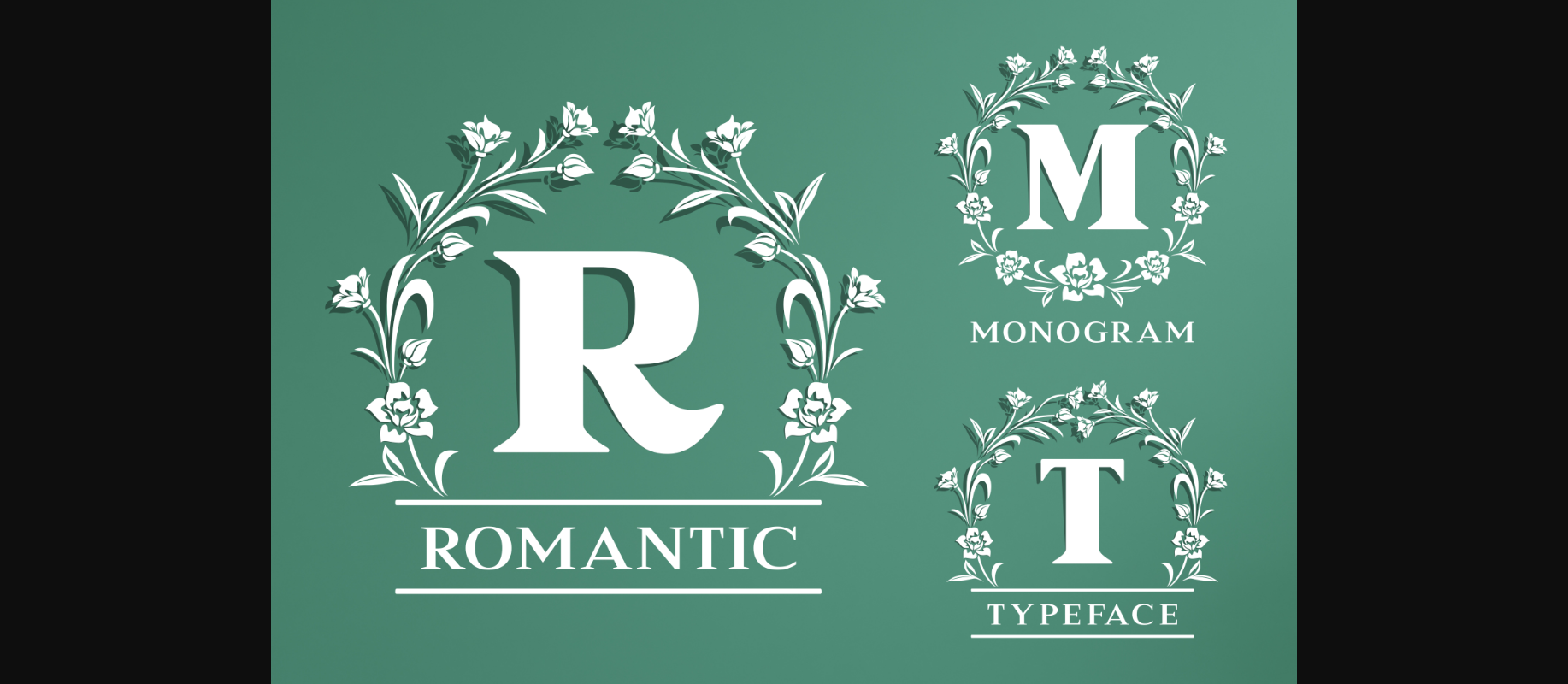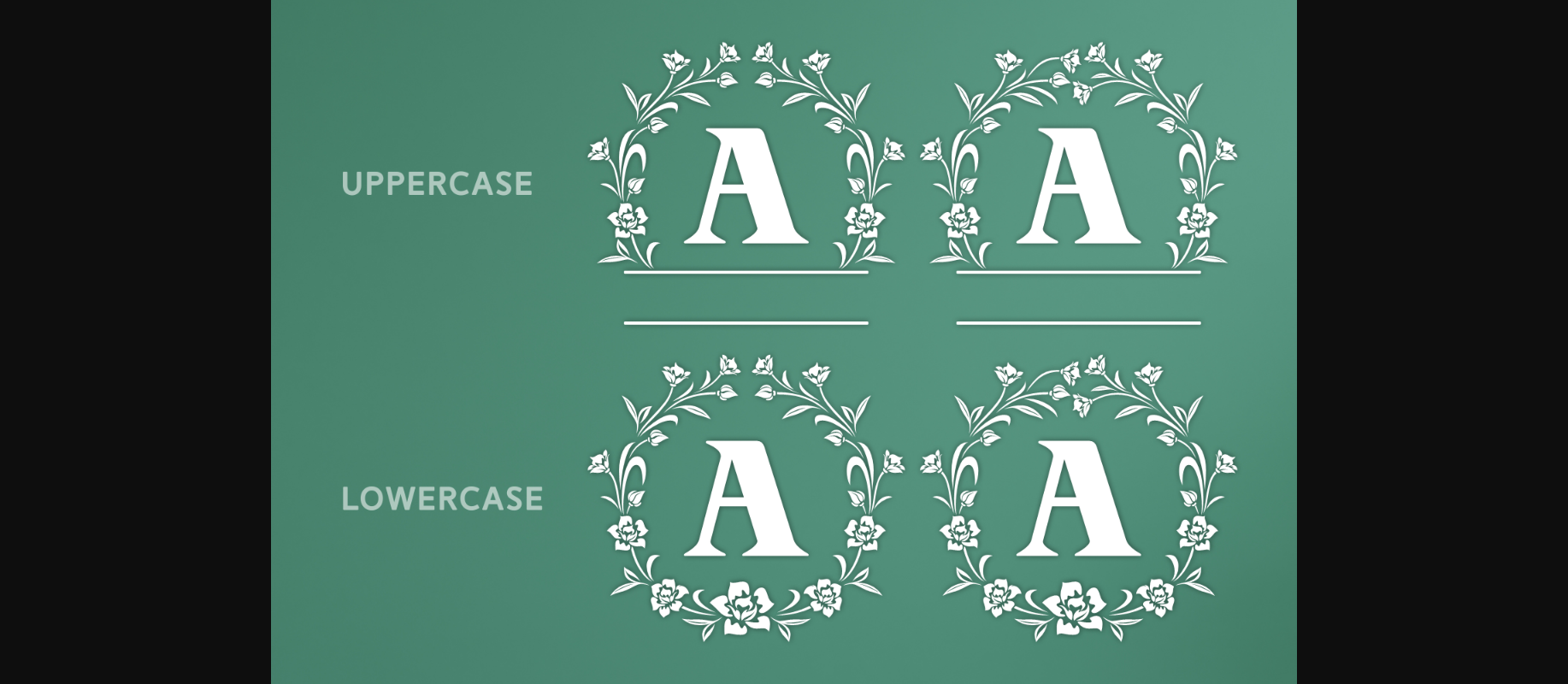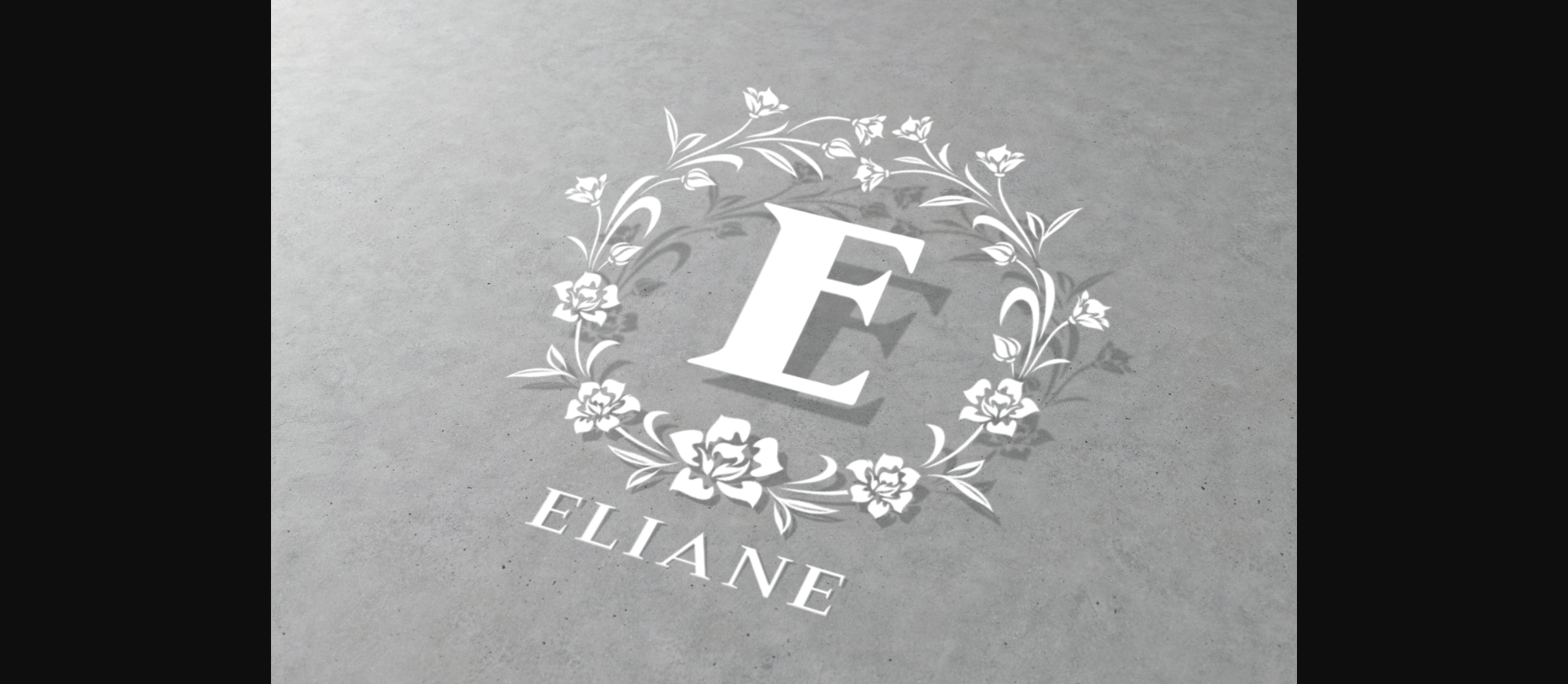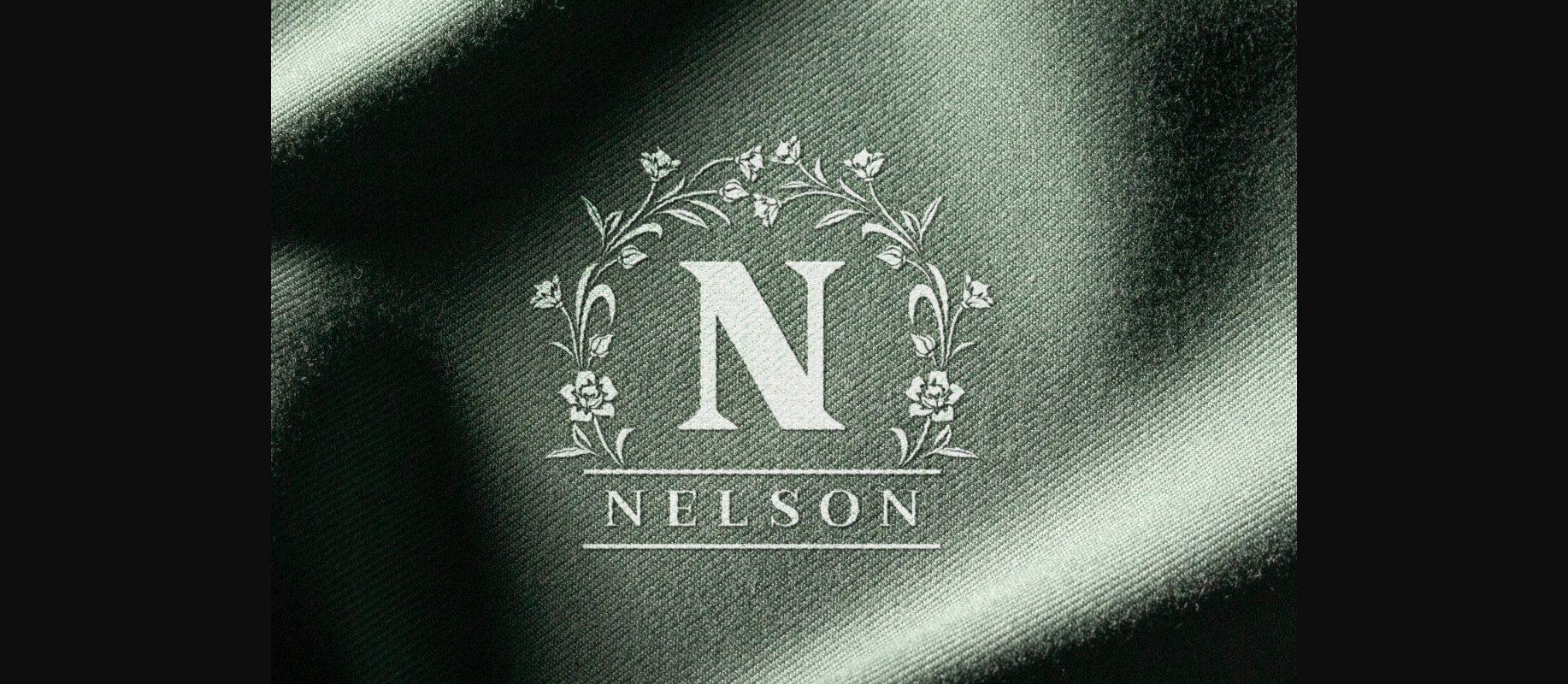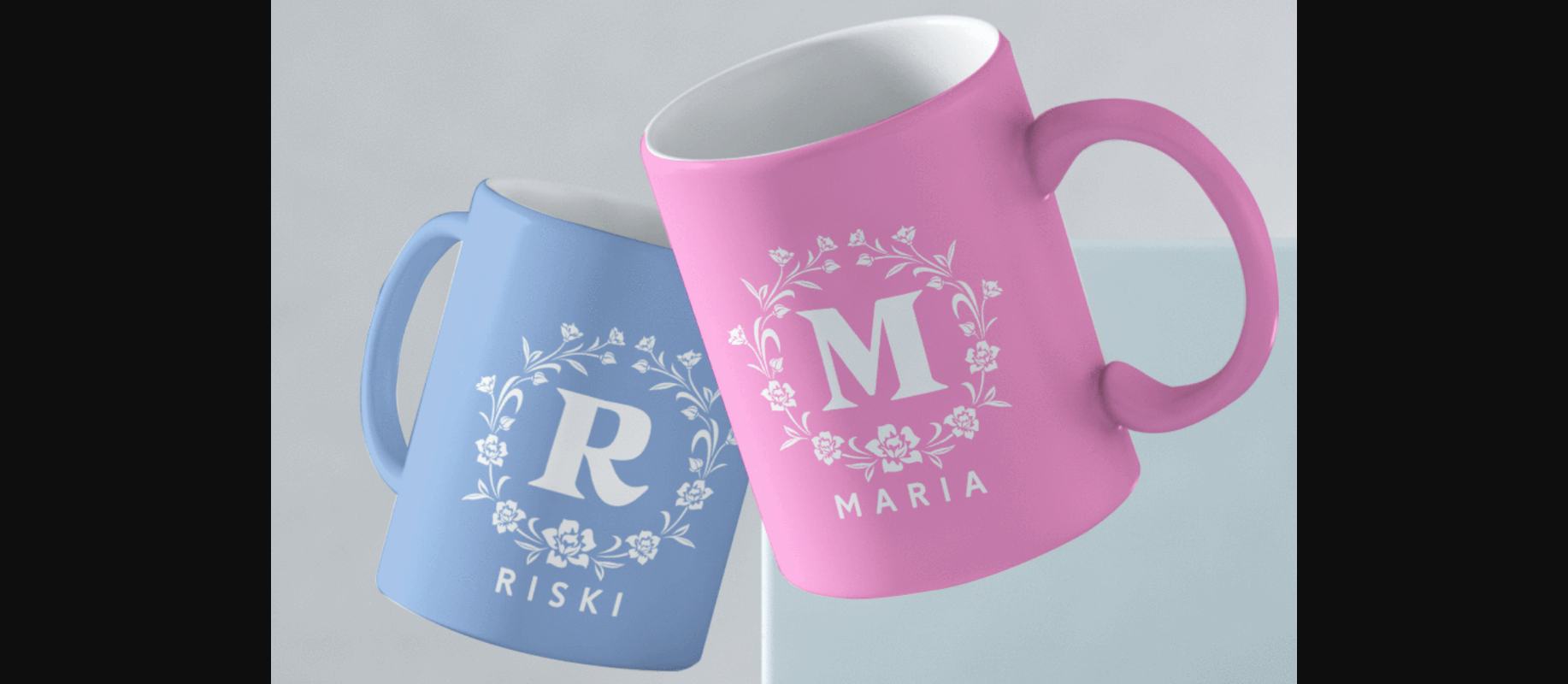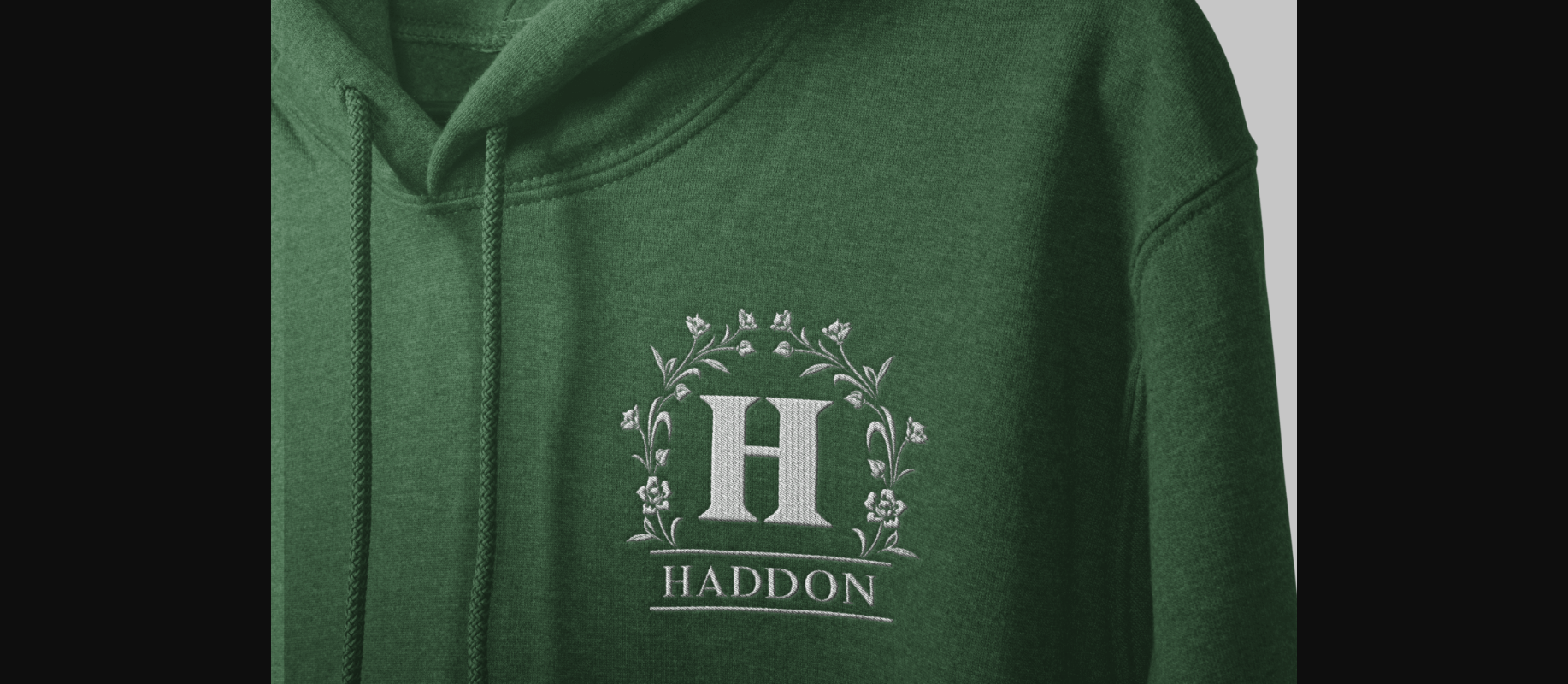
Romantic Font
About Romantic Font
Romantic is a stylish and modern decorative typeface in a monogram style that’s perfect for adding a touch of elegance to any project. Its sleek and polished appearance creates a sense of sophistication, making it ideal for branding, logos, and any design that demands a strong visual impact. Get ready to make your mark with this font!